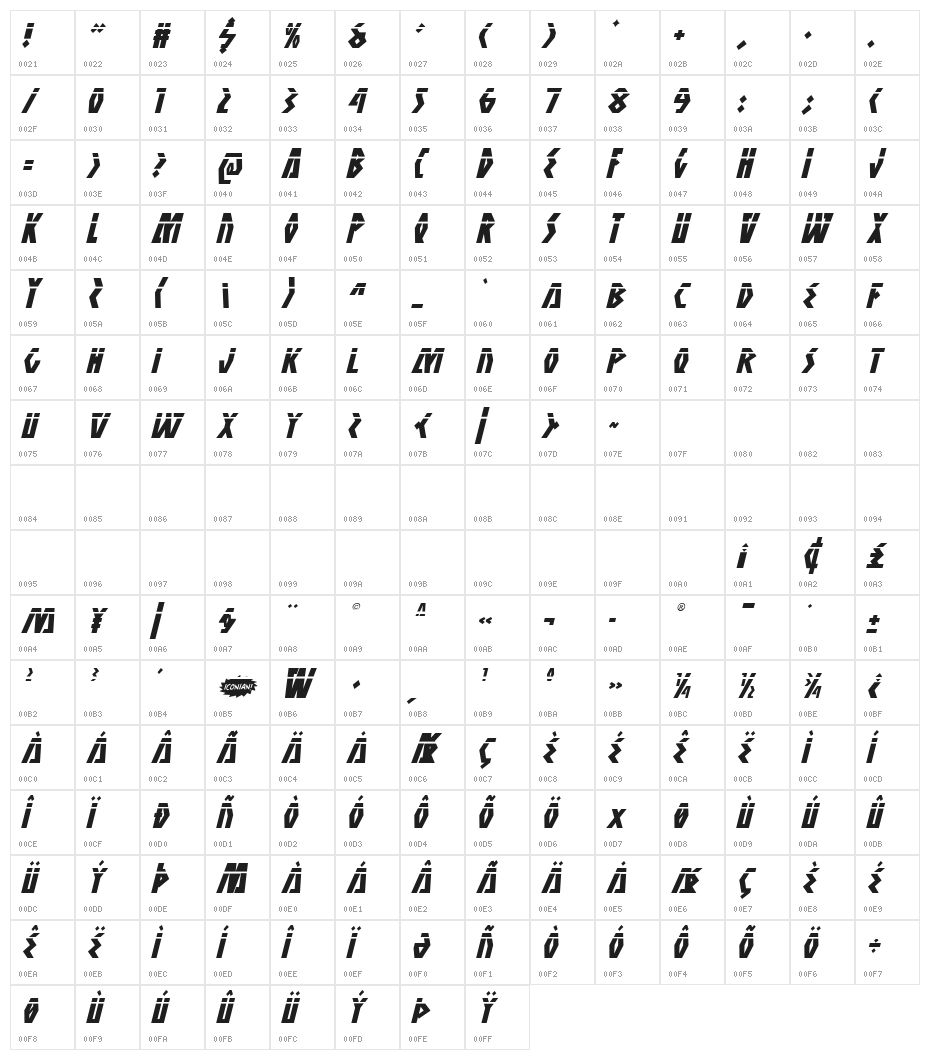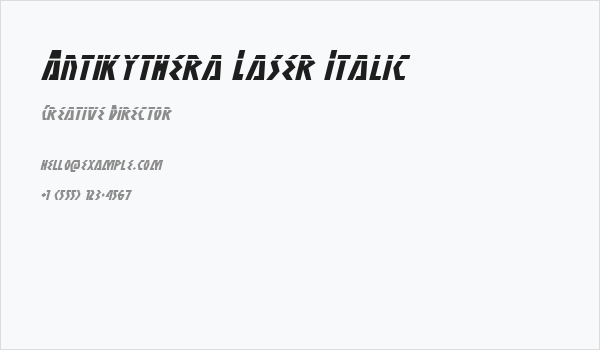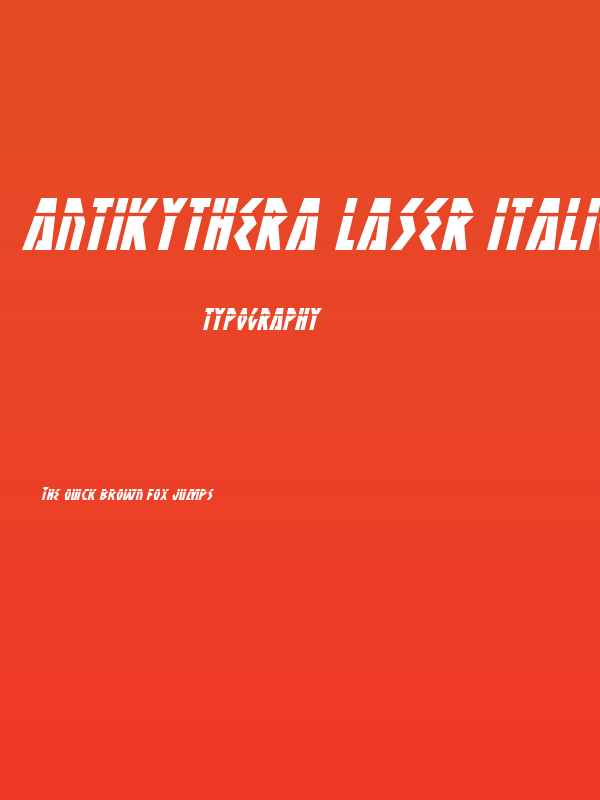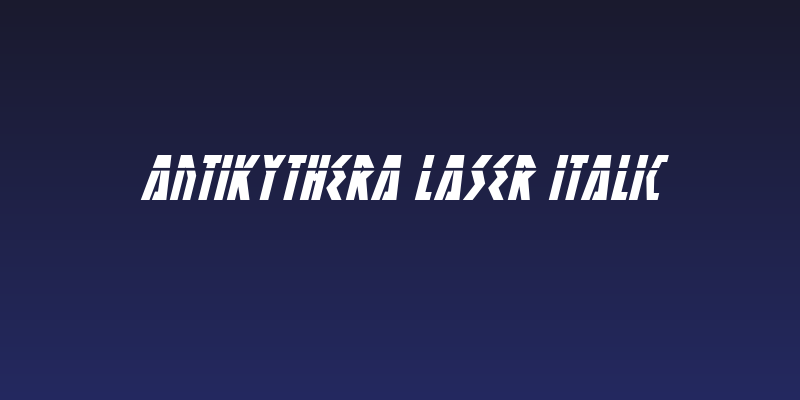
Antikythera Laser Italic Font
Antikythera Laser Italic Description
This font features a bold, angular design with a futuristic and dynamic appearance. The characters are sharply cut with a distinct geometric style, giving it a modern and edgy look. The italic slant adds a sense of motion and speed, making it ideal for projects that require a sense of urgency or forward-thinking. The uppercase and lowercase letters maintain a consistent style, with the numbers and special characters following suit. The overall aesthetic is both striking and memorable, suitable for attention-grabbing headlines or branding.
| Proposed Projects | Ideal for sci-fi themed designs, technology branding, video game titles, and dynamic posters. |